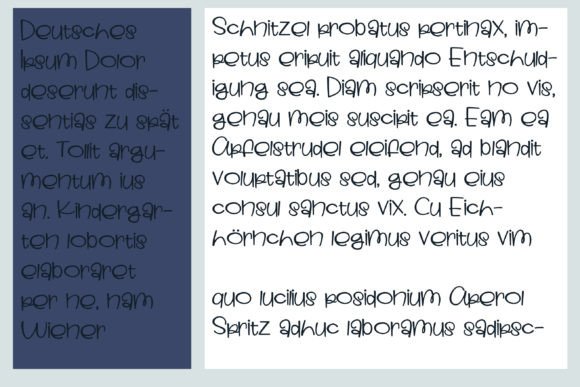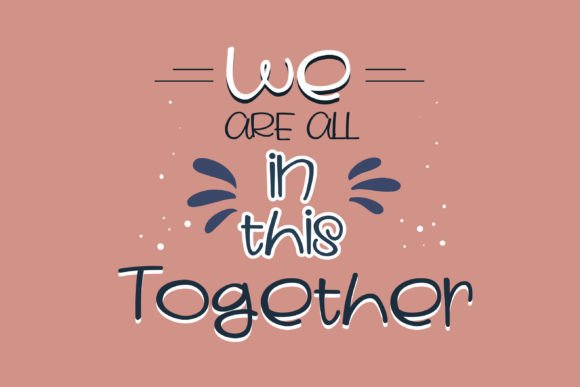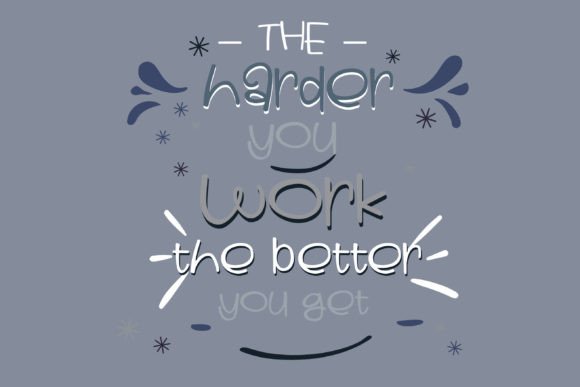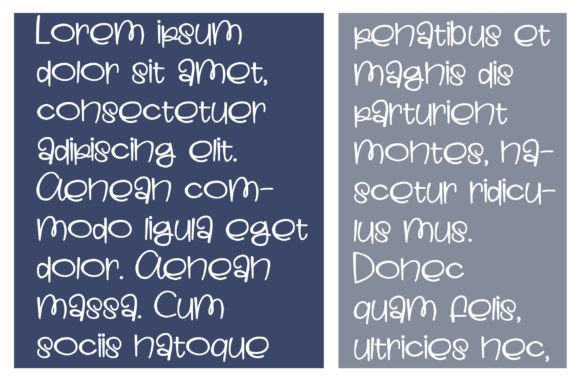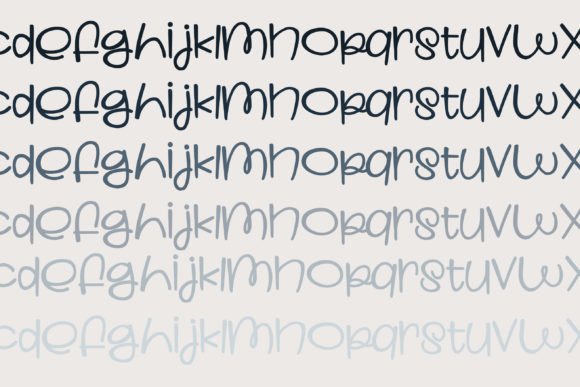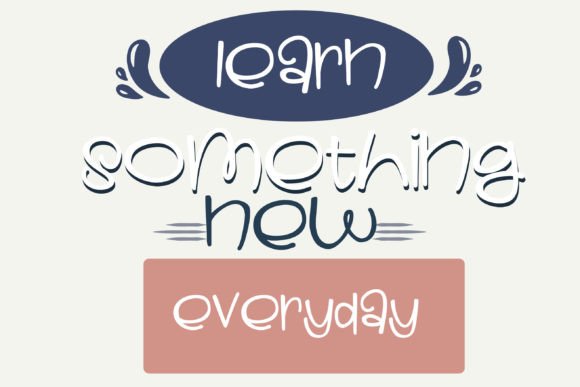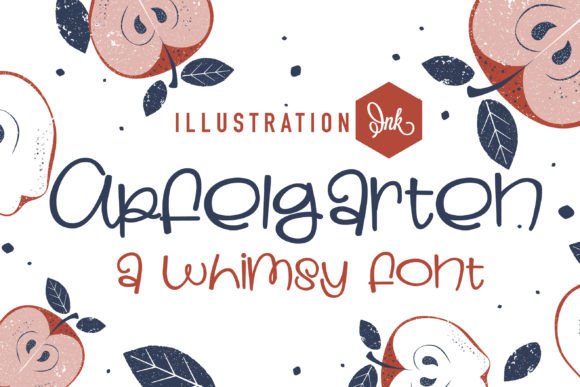
Introducing Apfelgarten Font: A Hand-Crafted Sans Serif for Creative Projects
Are you looking for a unique and playful font to add a personal touch to your designs? Look no further than Apfelgarten Font, a hand-crafted sans serif font that exudes a fun and whimsical vibe. With its squat lettering and script-like elements, this font is perfect for a variety of creative projects, from invitations and greeting cards to craft tutorials and DIY blogs.
A hand-crafted font, also known as a handwritten font, is a typeface that is designed to mimic the look of handwriting. Unlike traditional fonts, which are created using computer software, hand-crafted fonts are designed to look like they were written by hand. This gives them a unique, organic feel that can add a personal touch to any design.
Hand-crafted fonts can be either formal or informal, depending on the style and design. Some hand-crafted fonts are elegant and sophisticated, making them perfect for formal events and special occasions. Others are more playful and whimsical, making them ideal for craft tutorials, DIY blogs, and social media graphics.
Features of Apfelgarten Font
Apfelgarten Font is a unique and versatile hand-crafted sans serif font that offers a range of features, including:
- Squat lettering: Apfelgarten Font features squat lettering with a playful, chunky feel. This makes it perfect for headlines, titles, and other design elements that need to stand out.
- Script-like elements: Apfelgarten Font also features script-like elements, including flourishes and swashes. These add a touch of elegance and sophistication to the font, making it suitable for more formal designs.
- Hand-crafted feel: As a hand-crafted font, Apfelgarten Font has a unique, organic feel that sets it apart from traditional fonts. This makes it perfect for designers who want to add a personal touch to their designs.
- LITE version included: Apfelgarten Font also comes with a LITE version, which offers a more streamlined and simplified version of the font. This is perfect for designers who want to use the font for body text or other smaller design elements.
Uses for Apfelgarten Font
Apfelgarten Font is a versatile font that can be used for a wide range of creative projects, including:
- Invitations and greeting cards: Apfelgarten Font is perfect for creating custom invitations and greeting cards for special occasions, such as weddings, birthdays, and holidays.
- Craft tutorials and DIY blogs: Apfelgarten Font is also great for craft tutorials and DIY blogs, where a playful and whimsical font can add a personal touch to instructional content.
- Social media graphics: Apfelgarten Font can be used to create eye-catching social media graphics, including Facebook posts, Instagram stories, and Pinterest pins.
- Branding and packaging: Apfelgarten Font can also be used for branding and packaging design, where a unique and memorable font can help to establish a brand’s identity.
Tips for Using Apfelgarten Font
Here are a few tips for using Apfelgarten Font in your designs:
- Use it sparingly: Apfelgarten Font is a bold and playful font, so it’s best to use it sparingly to avoid overwhelming the design. Use it for headlines, titles, and other design elements that need to stand out.
- Pair it with a neutral font: Apfelgarten Font can be paired with a neutral font, such as a sans serif or serif font, to create a balanced and harmonious design.
- Experiment with colors: Apfelgarten Font looks great in a range of colors, from bright and bold to pastel and soft. Experiment with different colors to find the perfect combination for your design.
Apfelgarten Font is a unique and versatile hand-crafted sans serif font that offers a range of features and uses. With its squat lettering, script-like elements, and hand-crafted feel, this font is perfect for designers who want to add a personal touch to their designs. Whether you’re creating invitations, greeting cards, craft tutorials, or social media graphics, Apfelgarten Font is a great choice. So why not give it a try and see how it can add a touch of whimsy and personality to your designs?